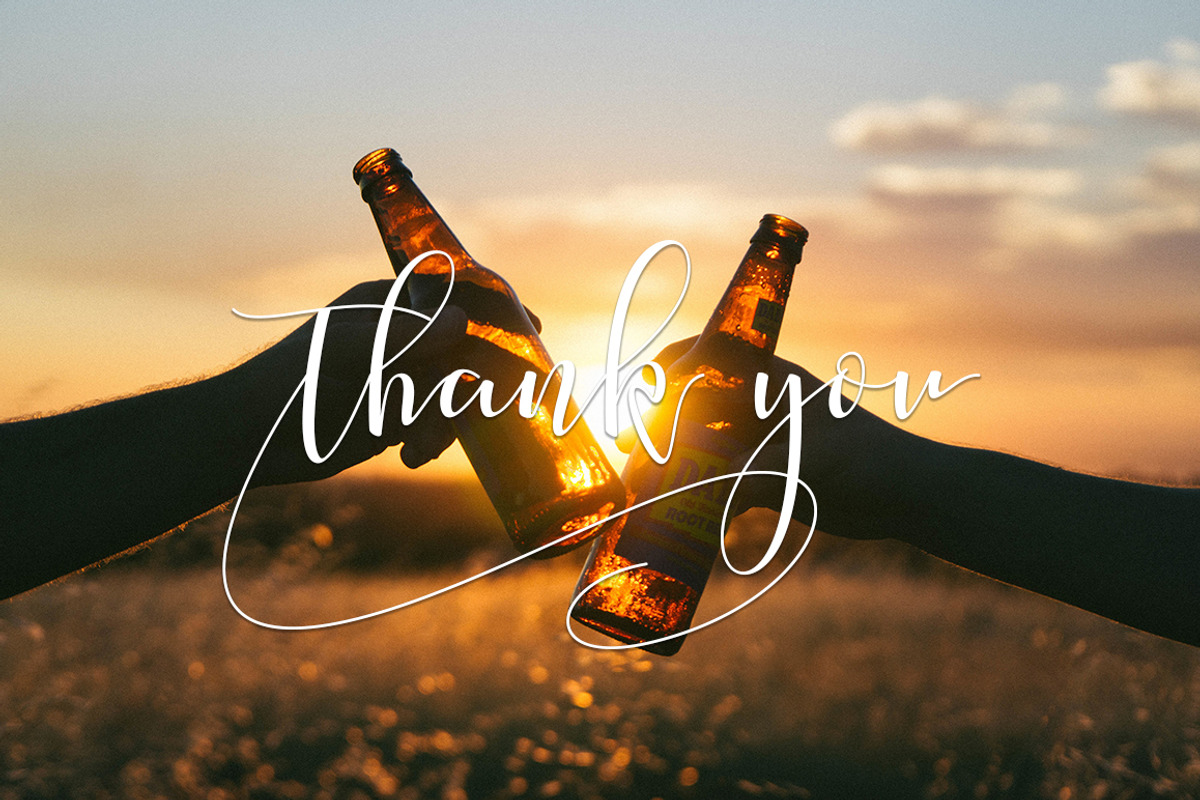
Society Calligraphy Modern
NEW ! Society Script. It's an modern typeface. Society Script, including swashes, ligatures and International support for most Western Languages is included.